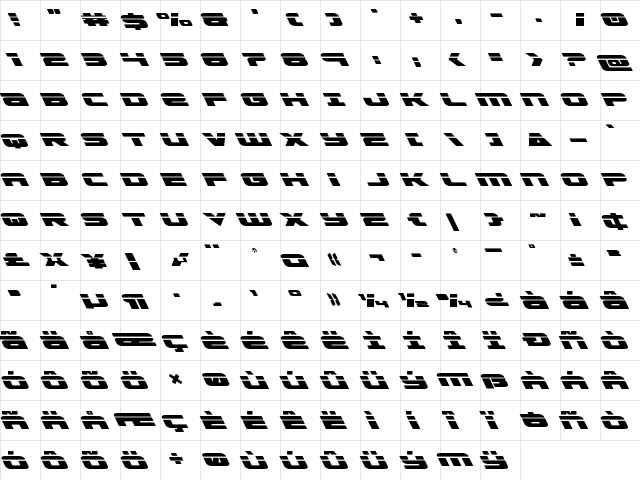
Speed Phreak Leftalic Italic
Design Context for Speed Phreak Leftalic Typeface
Speed Phreak Leftalic is a composed and adaptable typeface that performs quietly and consistently across a wide range of design contexts. Its italic angle brings a sense of urgency and motion to the letterforms.
Pro Tip: Try Speed Phreak Leftalic for annotation and caption copy alongside an upright companion — the contrast in angle creates a dynamic but ordered typographic system.